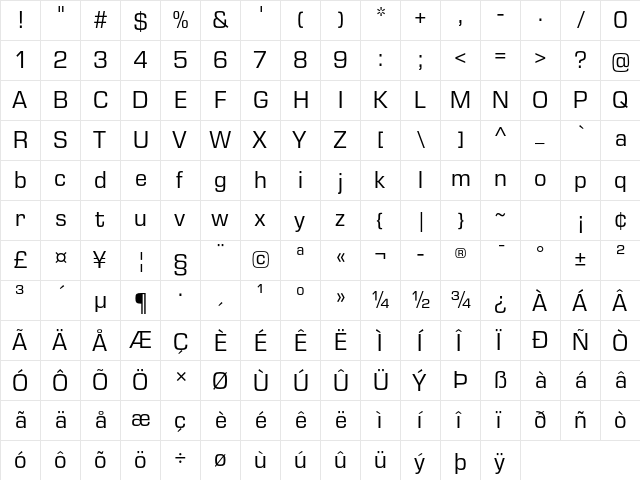
Eurostile Next LT Pro Regular
| Foundry | Linotype GmbH |
| Designer | Linotype Design Studio |
Design Context for Eurostile Next LT Pro Typeface
Eurostile Next LT Pro takes a measured approach to typography — its balanced proportions and neutral character make it a reliable workhorse for both digital and print work. The delicate stroke weight brings airiness and refinement to layouts.